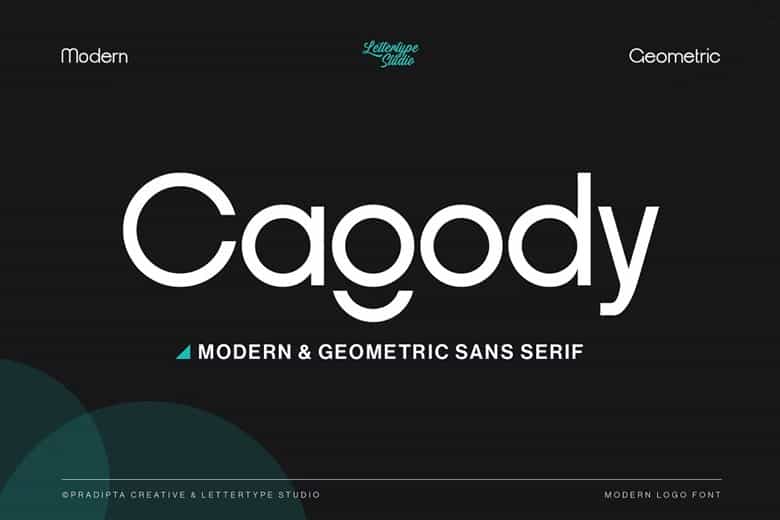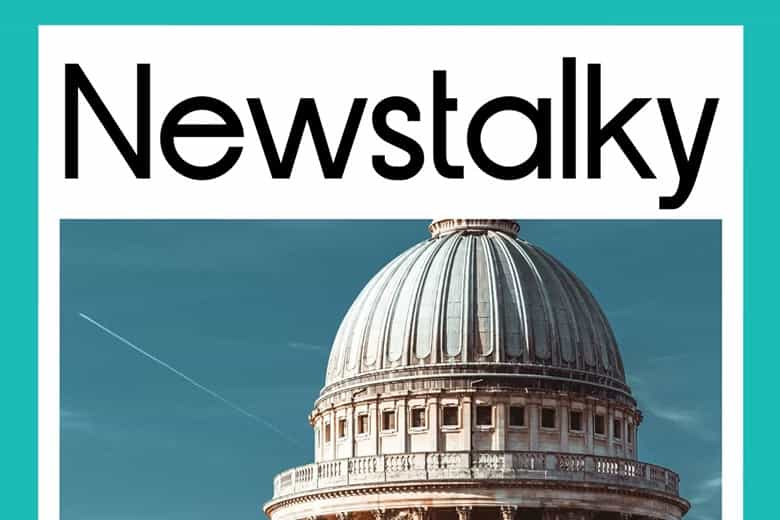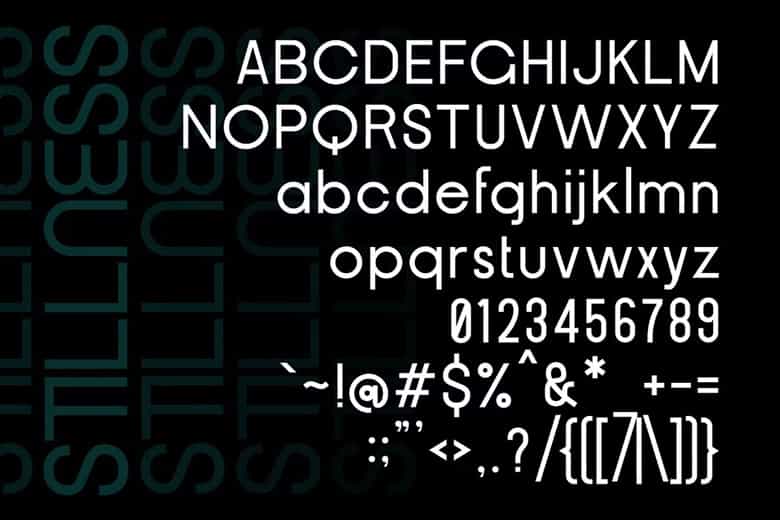
Cagody is clean and classy sans serif typeface: geometric, modern and very customizable for your and your extraordinary designs. This font is ideal for photography, watermarks, social media posts, advertisements, logos & branding, invitations, product designs, labels, stationery, wedding designs, product packaging, subleaders or headers, special events or anything really.